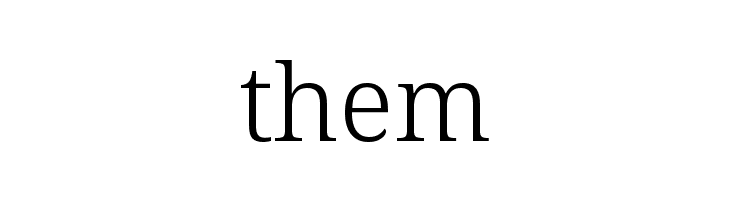
A condensed serif font supporting the Lao script, known for its clean and structured appearance.
A bold, condensed font supporting the Lao script with a modern and professional appearance.
A bold, condensed typeface for the Lao script, offering strong readability and impact.
A light, condensed font with a modern and elegant style.
A modern, condensed font with medium weight and tight spacing.
A modern, thin, and condensed font with a clean and elegant appearance.
A bold serif typeface with high contrast and strong presence.
A bold, extra-condensed font with a modern, geometric style.
A bold, extra-condensed serif font with tight spacing and strong visual impact.
A bold, extra-condensed font with tight spacing and a modern style.
A geometric, extra-condensed, semi-bold font with tight spacing and a modern aesthetic.
A sleek, extra condensed font with thin strokes and a modern aesthetic.
A light, serif font with clean lines and balanced proportions.
A semi-condensed, semi-bold serif font with a modern yet classic style.
A semi-condensed, thin serif font with a clean and modern design.
A thin, elegant serif font with a modern yet classic aesthetic.